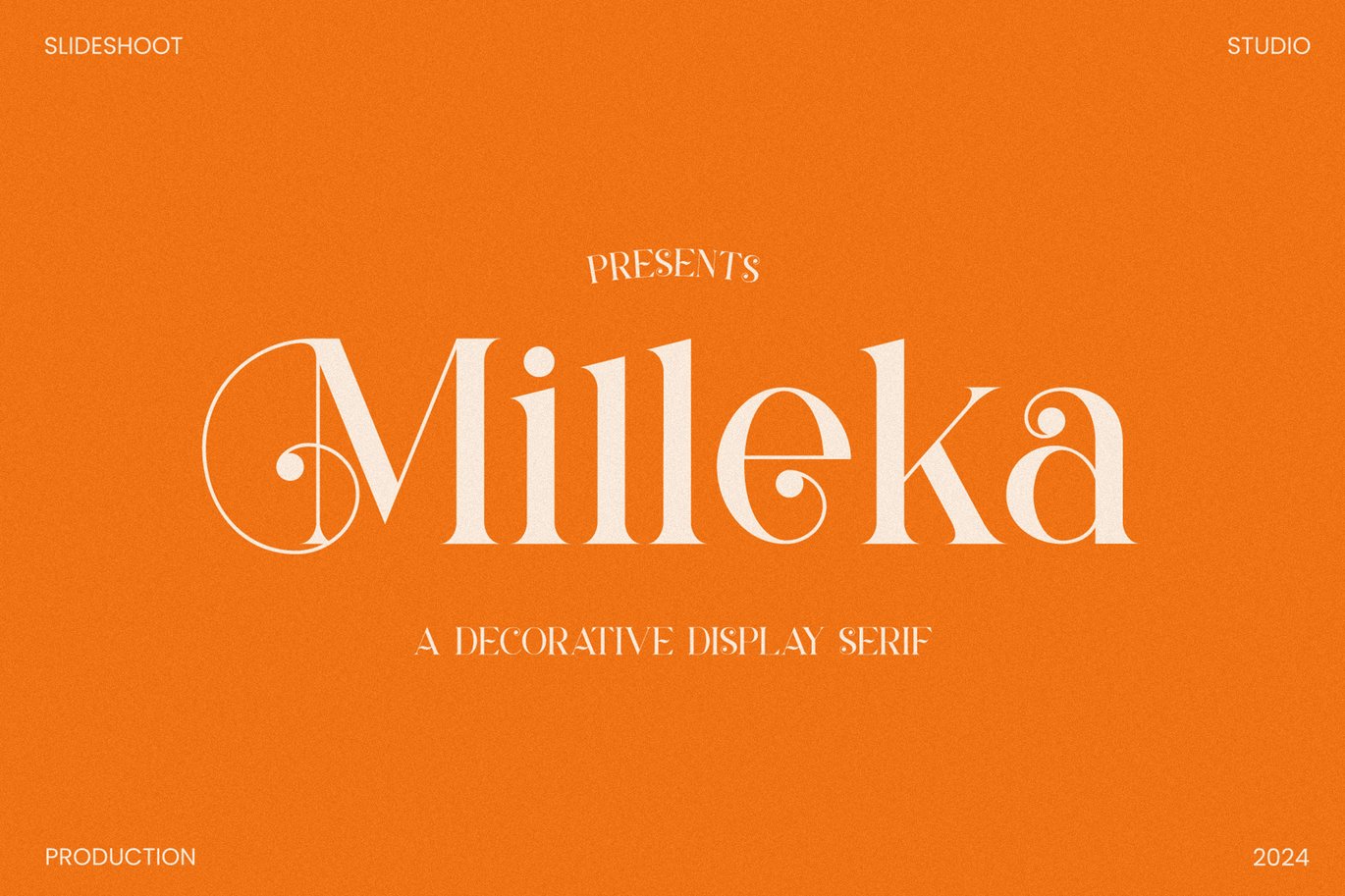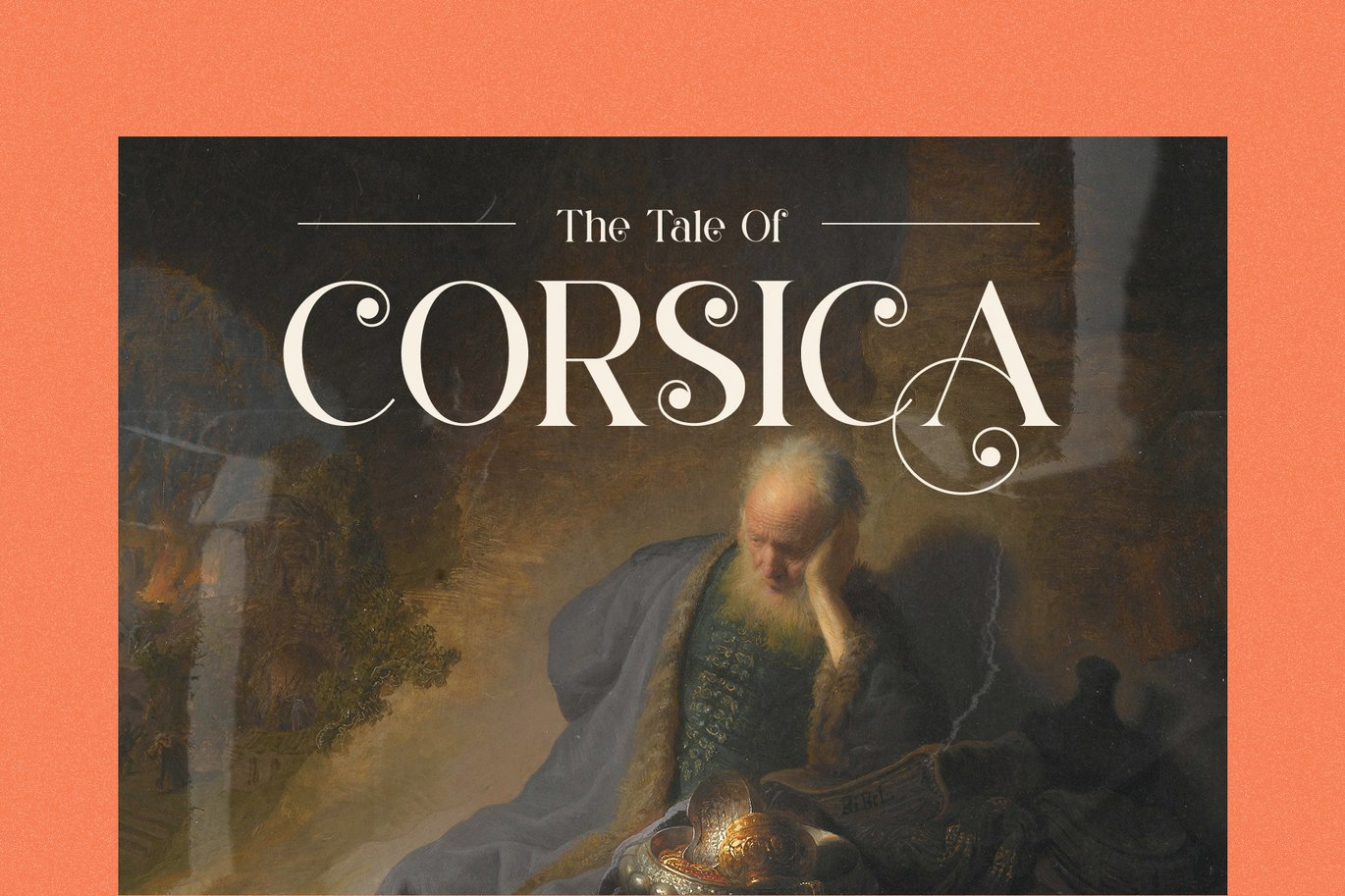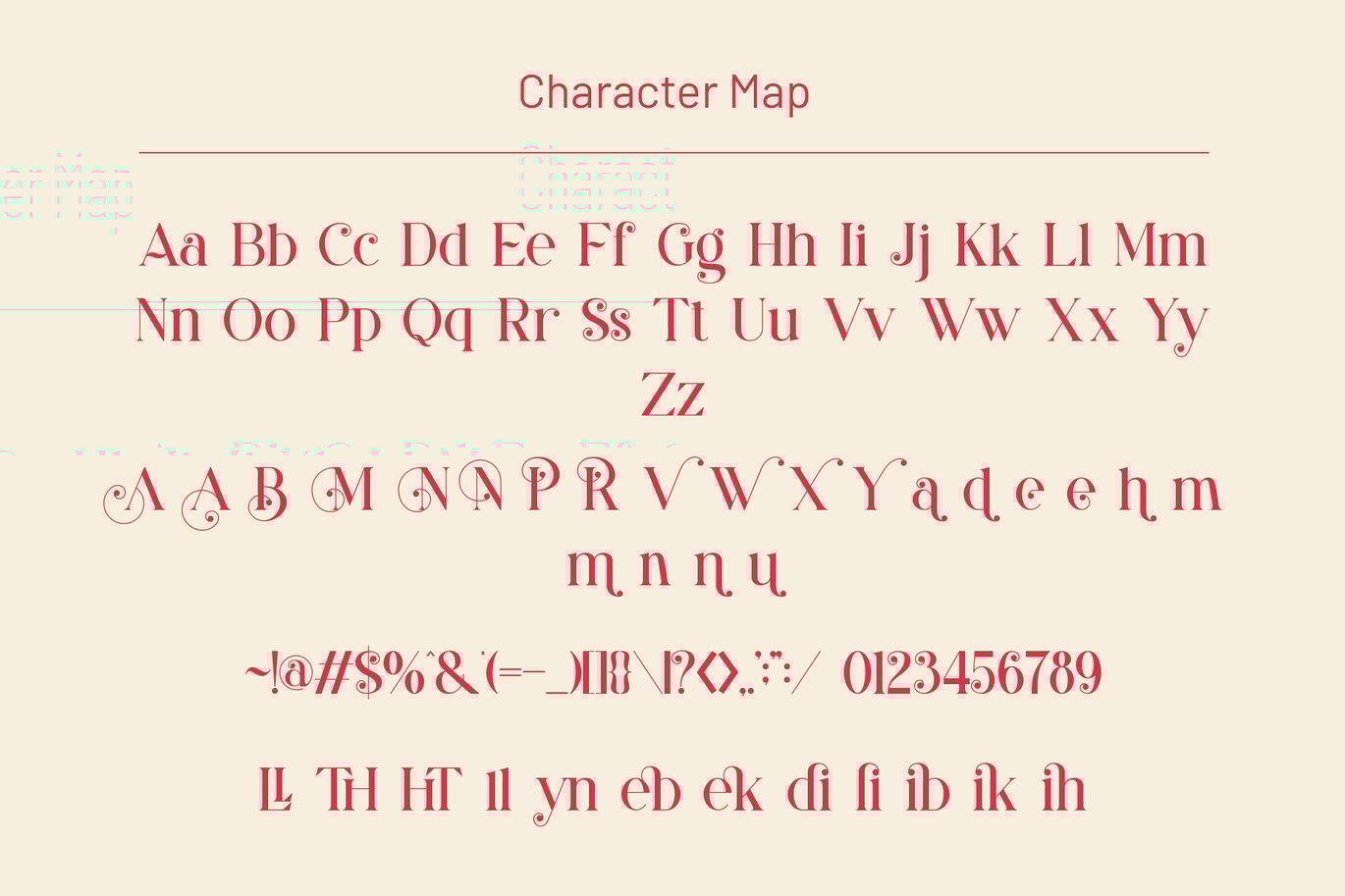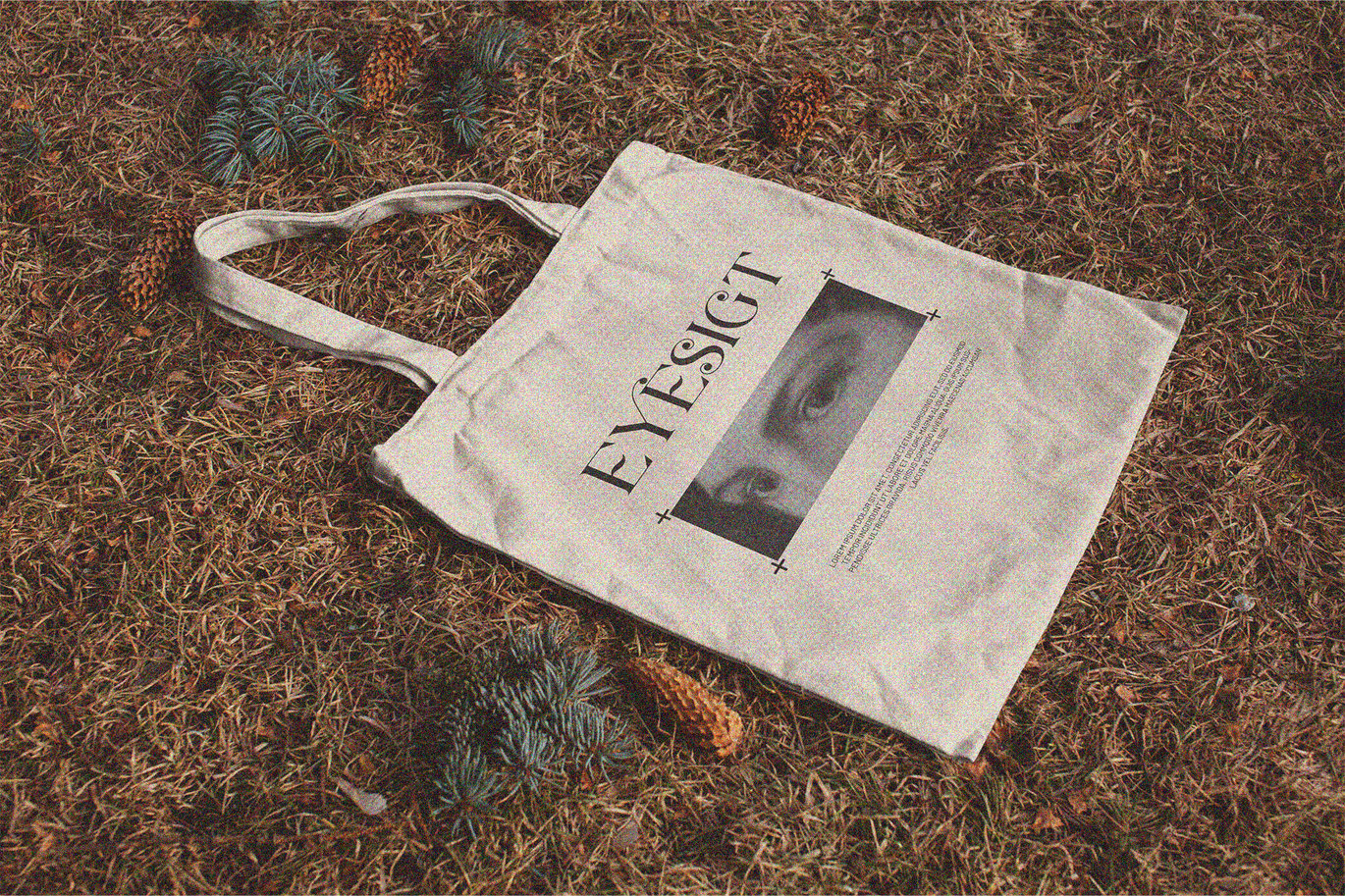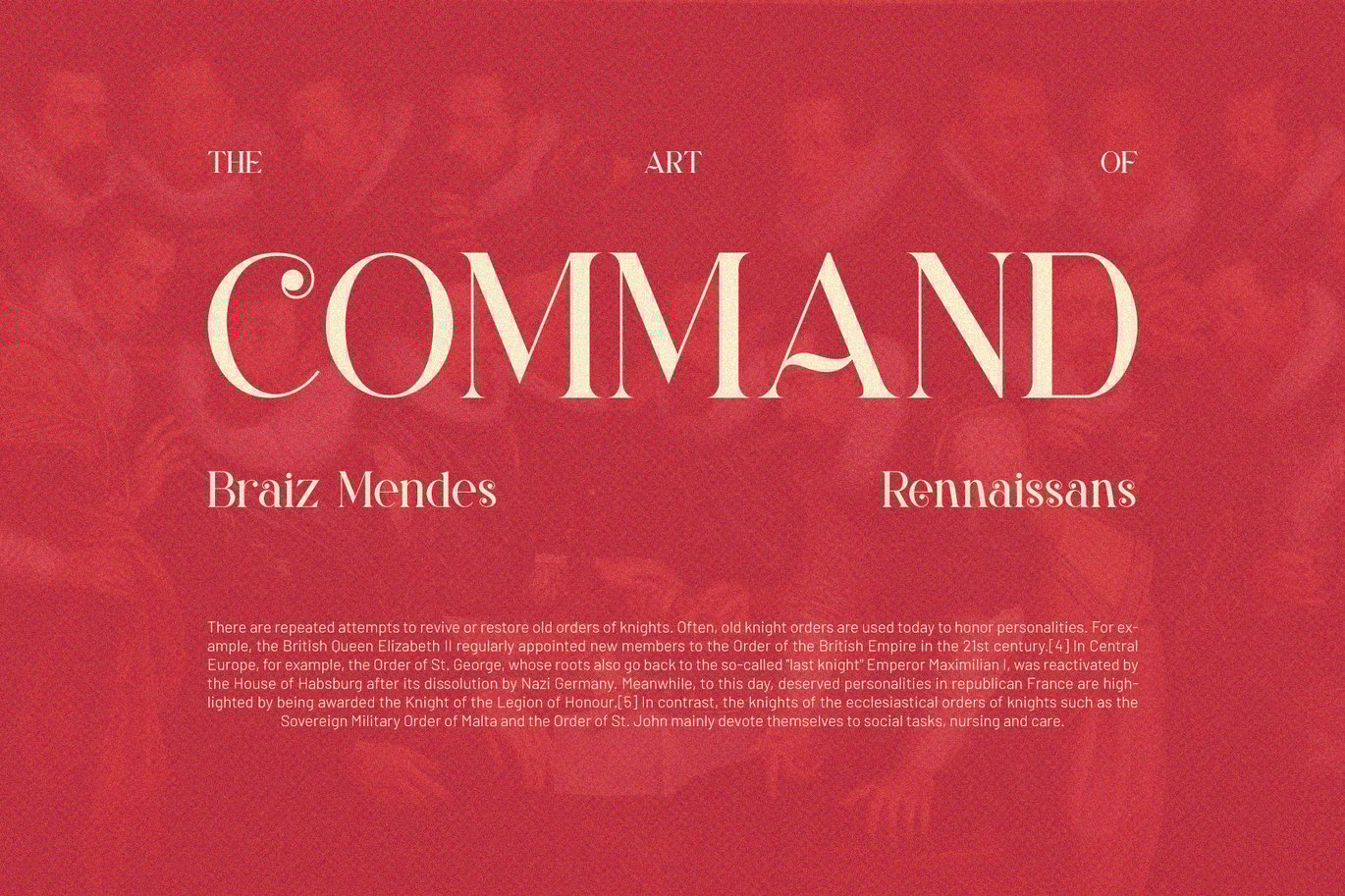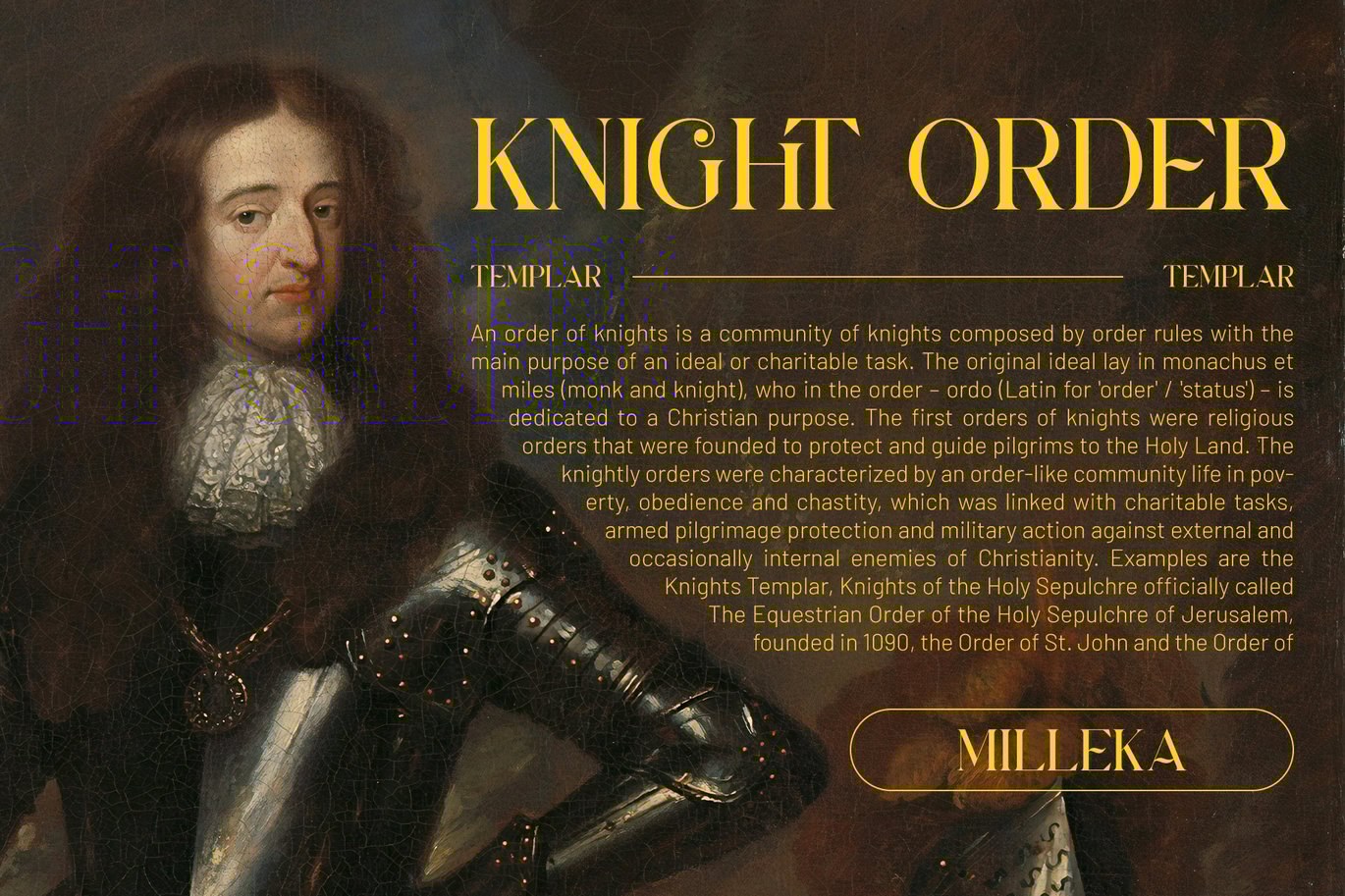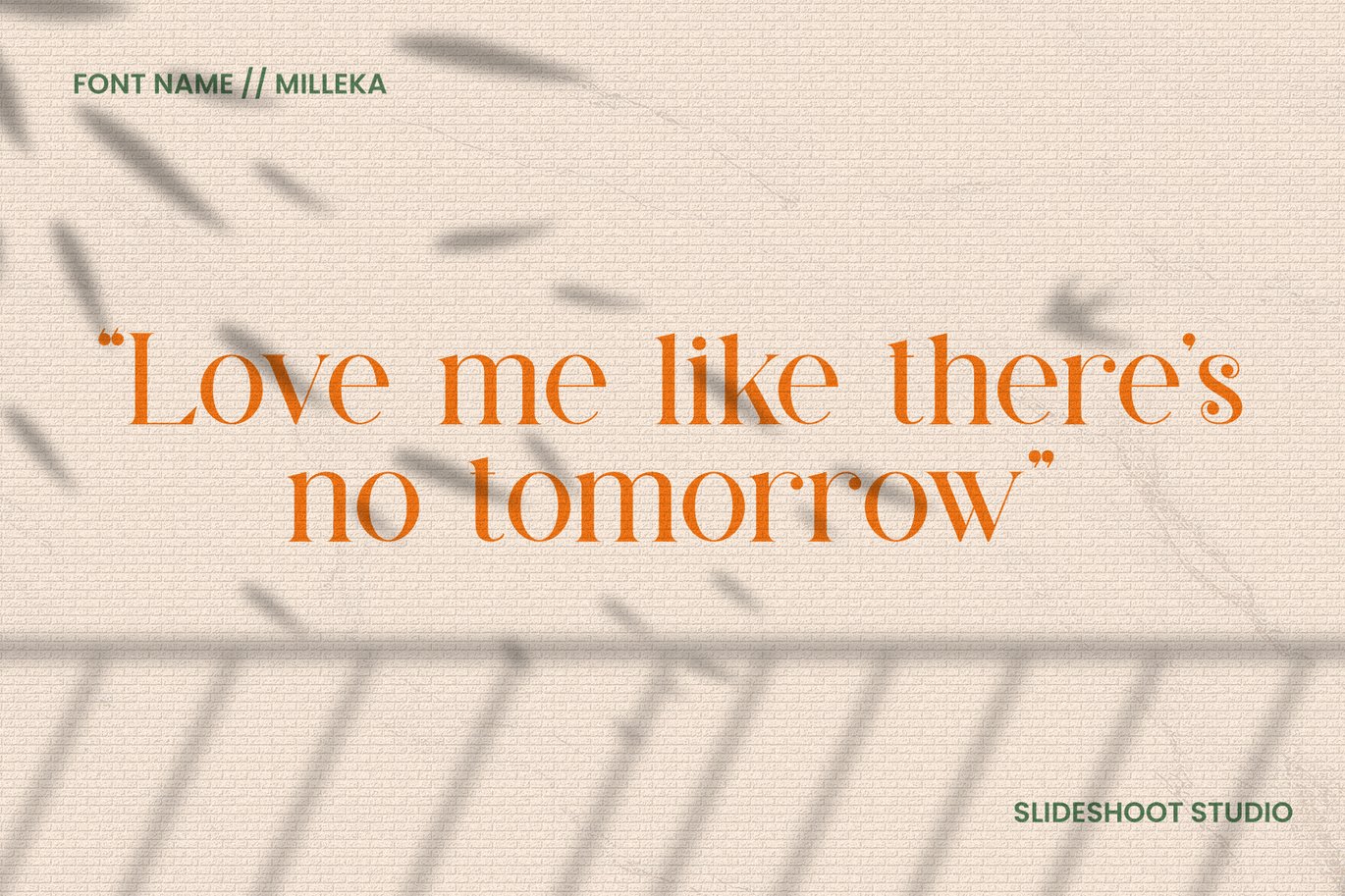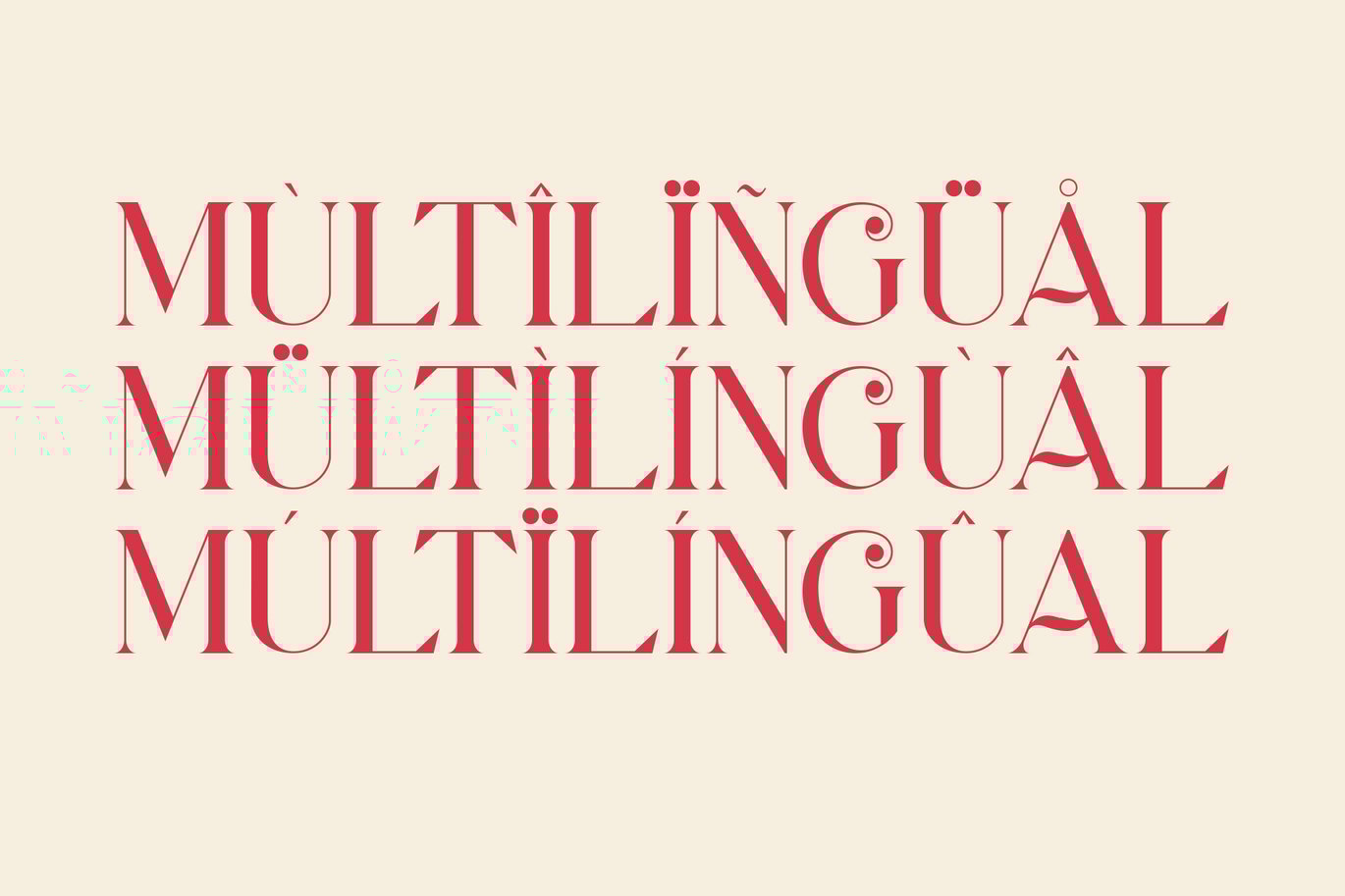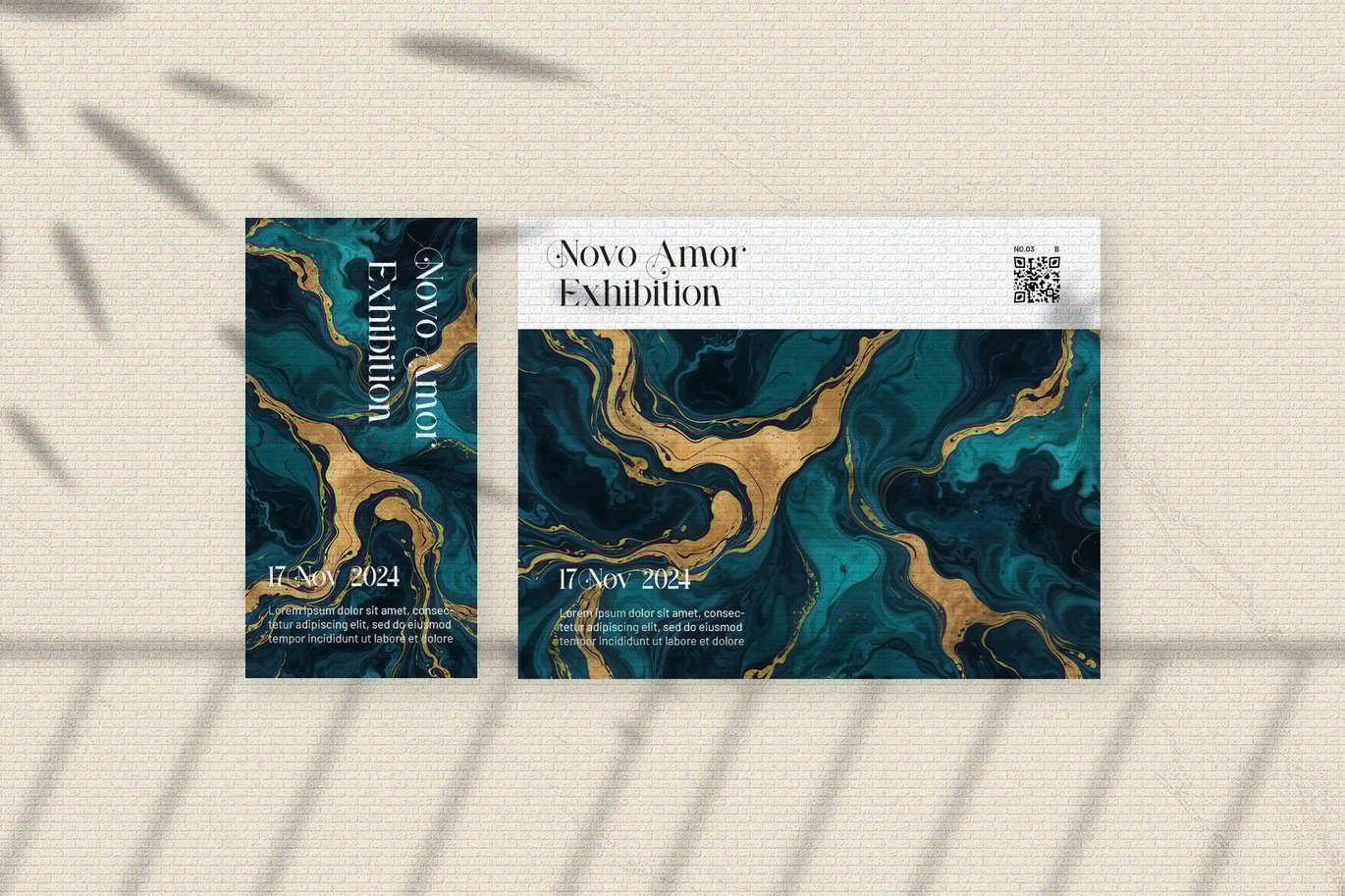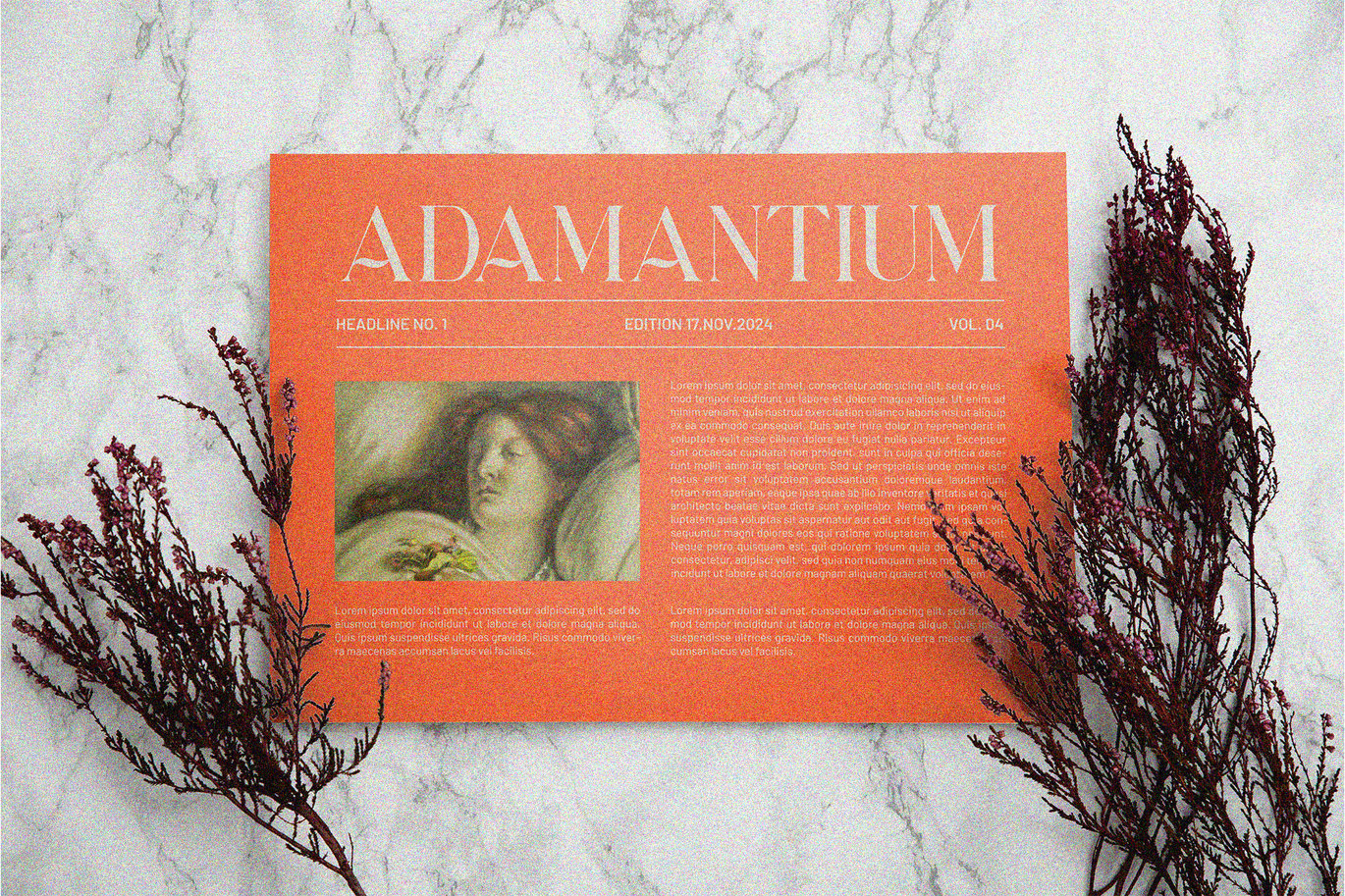
Milleka || Decorative Serif Font
Milleka Serif is a modern typeface with a classic look. Made with a special touch, careful, balanced, smooth, elegant and unique. Attracts attention and beautifies any design. Perfectly combined with invitation card designs, company logos, movie titles, movie names, business cards, book titles, brand names and various other designs. Its unique changes and ligatures make this font a perfect partner for any project.
- Uppercase and lowercase
- Numbering and Punctuation